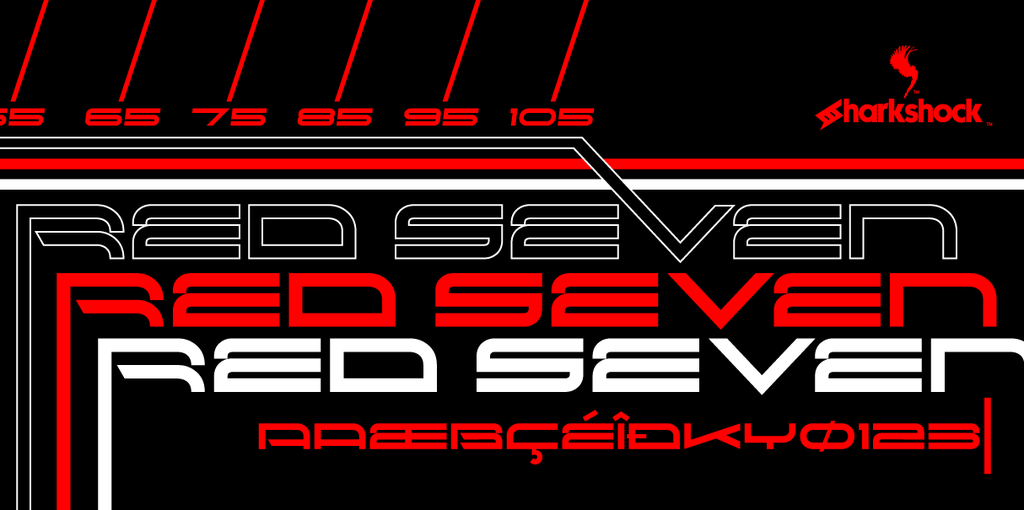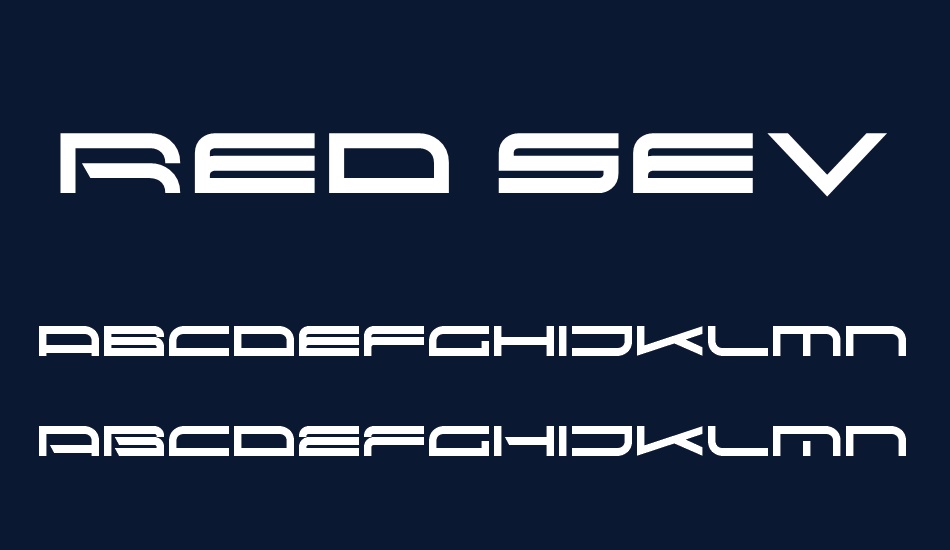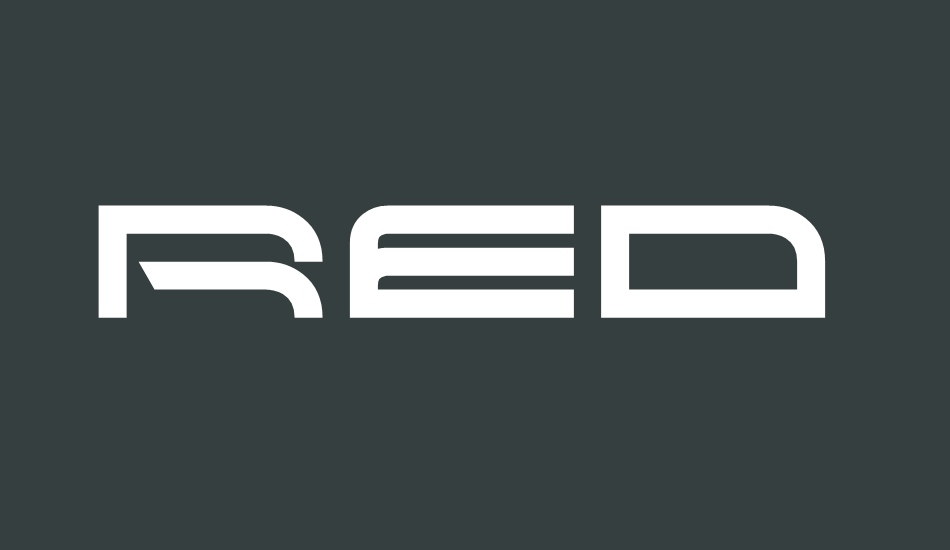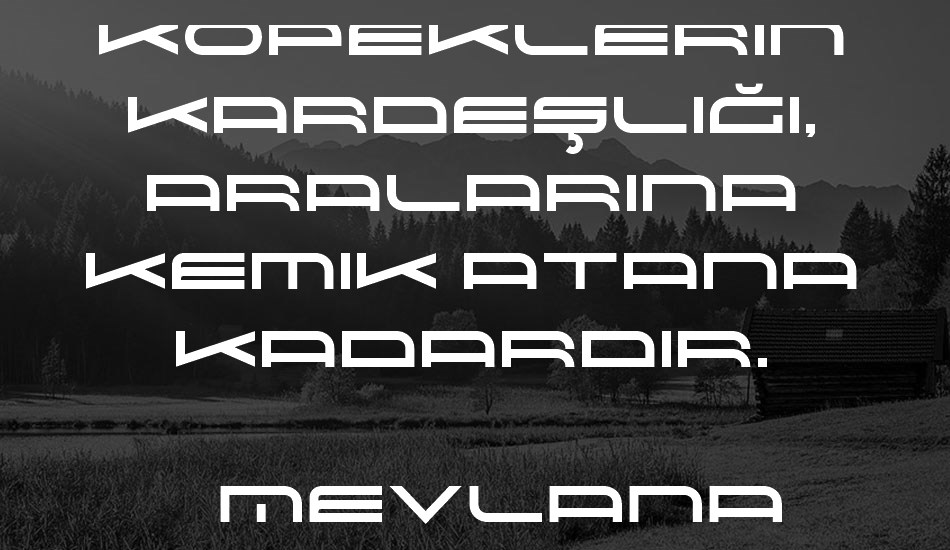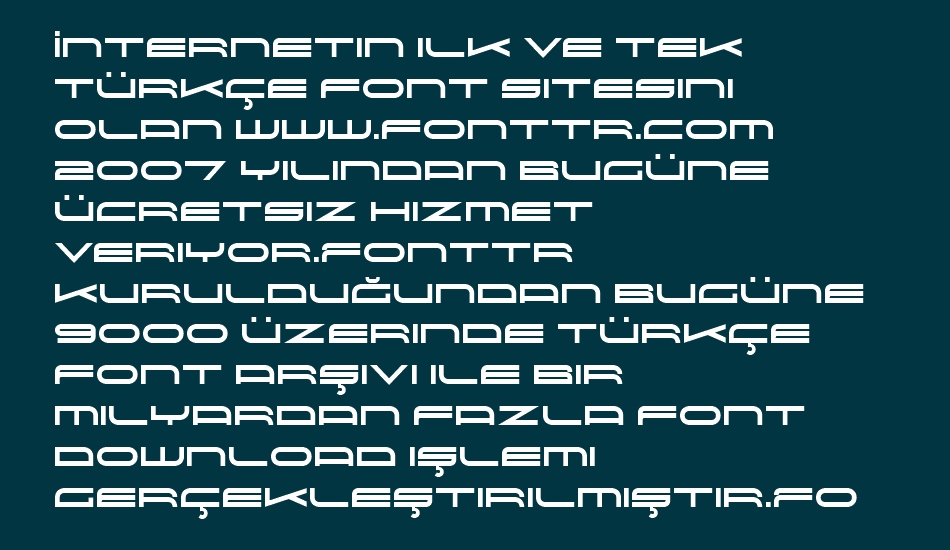
Red Seven font
by Sharkshock
Looking for a sharp typeface that can take you places? How about one that can slice through a tomato can? Red Seven is an edgy, futuristic display font that lends itself to lettering, titles, and logos. It features an ultra sleek even weight that repeats itself through all of the characters. Inspiration came
from bands, exotic cars, sci-fi movies, and college sports teams. Use uppercase for more emphasis on the angled bars or lowercase for more legible text, but not together. To be consistent with styling It's recommended that you stay with one or the other. There are some alternates and one stylistic
set built in which compliments the angular styling of the uppercase members. Basic/extended latin are featured with kerning, basic punctuation, European accents, and diacritics. Italic and Outline version are available with purchase of commercial license.